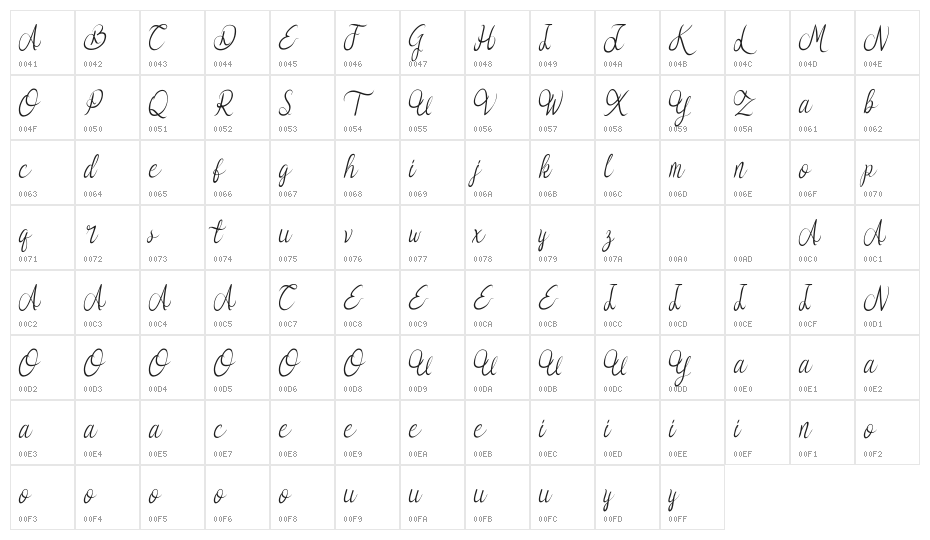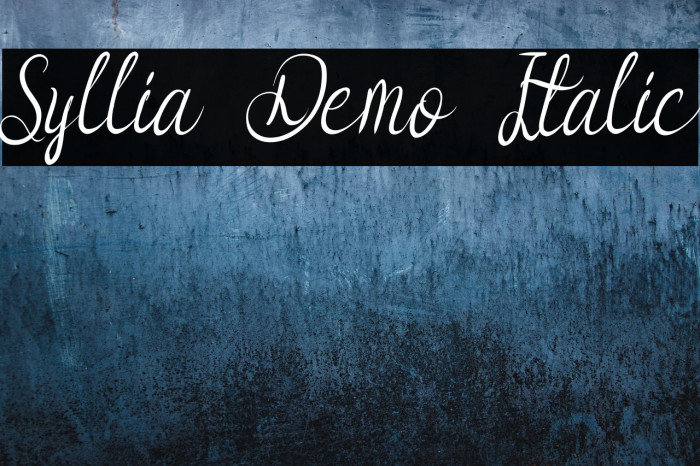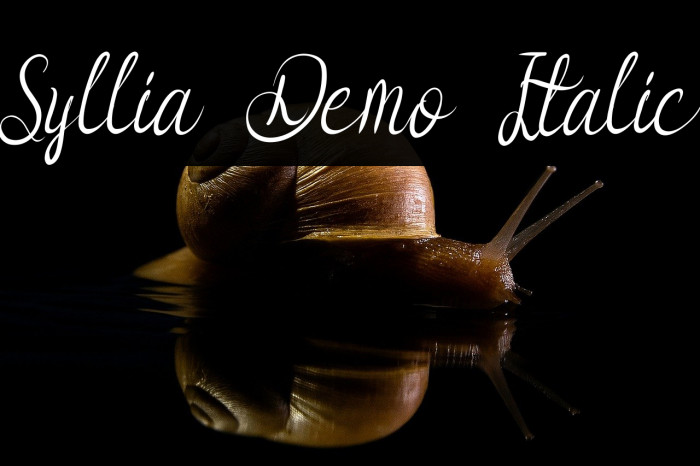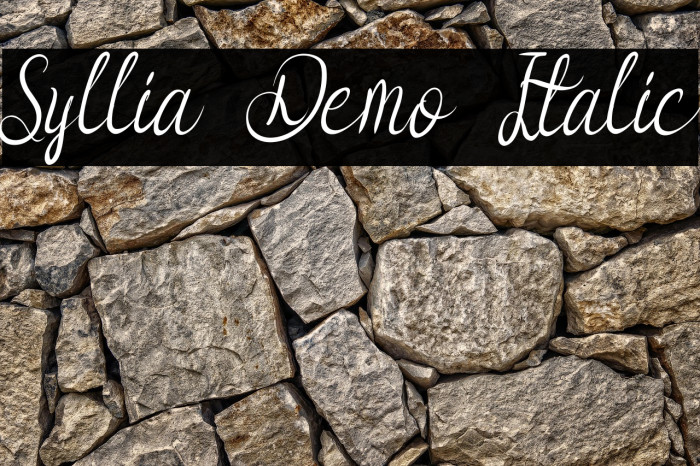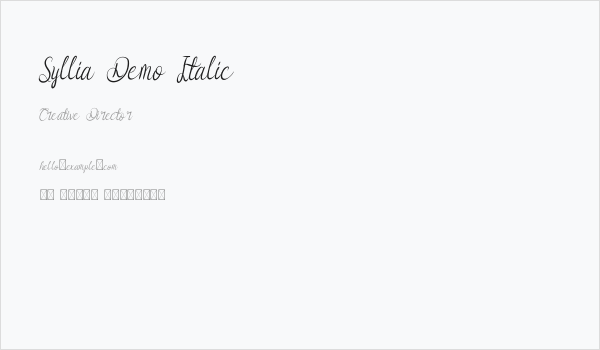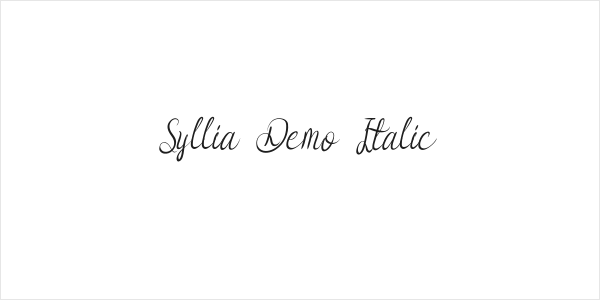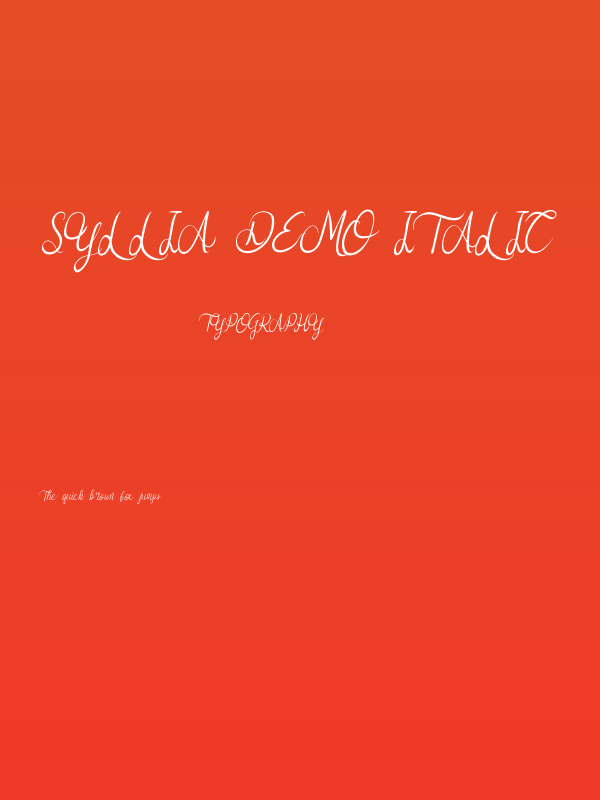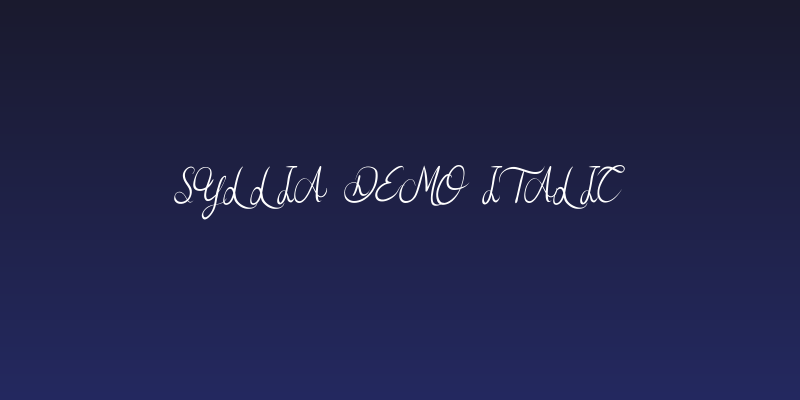
Syllia Demo Italic Font
Syllia Demo Italic Description
This elegant script font features flowing, interconnected letters that exude a sense of sophistication and grace. The uppercase letters are ornate, with sweeping curves and flourishes that add a decorative touch. The lowercase letters maintain a consistent style, with smooth transitions and a slightly slanted posture that enhances the italic nature of the font. The numerals and special characters are designed to match the overall aesthetic, ensuring a cohesive look across all text. This font is ideal for projects that require a touch of elegance and refinement.
| Overall Style | Elegant, Decorative |
| Use Case | Headlines, Invitations, Branding |
| Proposed Projects | Wedding invitations, luxury branding, elegant packaging, greeting cards, and formal event programs. |